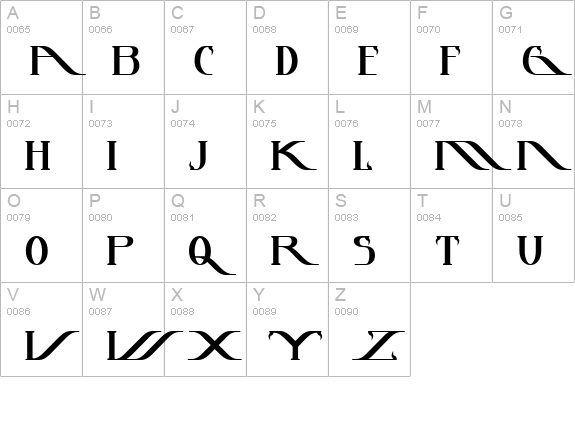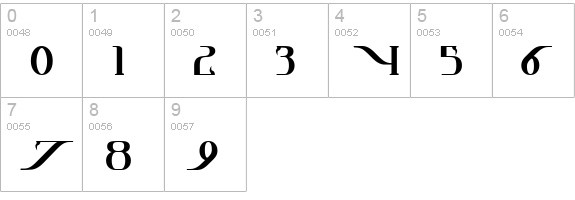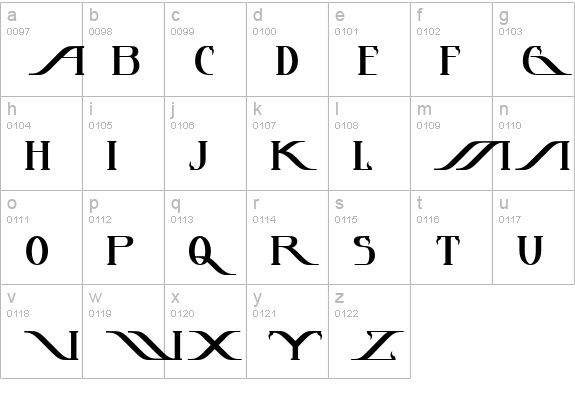
InstantTunes Font Details
Introducing InstantTunes, a captivating and versatile font that will bring a harmonious touch to any design project. With its sleek and modern aesthetic, InstantTunes exudes an air of elegance and sophistication, making it the perfect choice for a wide range of creative endeavors. This font effortlessly combines clean lines with subtly rounded edges, resulting in a harmonious balance between modernity and warmth. InstantTunes is designed to be legible and visually appealing in both large and small sizes, ensuring that your message is conveyed with clarity and style. But what truly sets InstantTunes apart is its accessibility and affordability. This incredible font is available for free, enabling designers of all backgrounds and budgets to enhance their work with its timeless charm. Simply head over to FontsMarket.com, where you can download InstantTunes and start unleashing your creativity without any cost. Whether you're designing a logo, crafting a captivating headline, or creating eye-catching marketing materials, InstantTunes will effortlessly elevate your work to new heights. Its versatility and timeless appeal make it an invaluable addition to any designer's toolkit. So why wait? Take advantage of this remarkable opportunity to enhance your designs with InstantTunes. Download this outstanding font for free at FontsMarket.com and let your creativity soar to new heights. InstantTunes is your key to creating captivating and visually compelling designs that will leave a lasting impression.